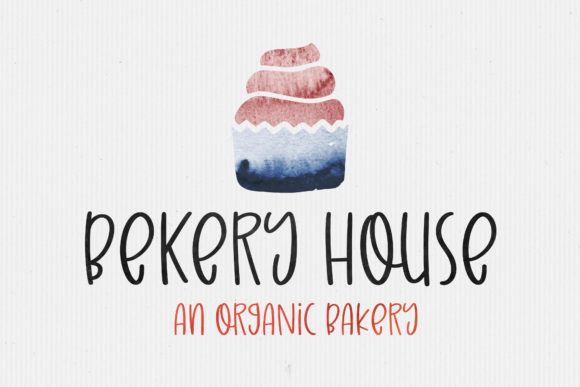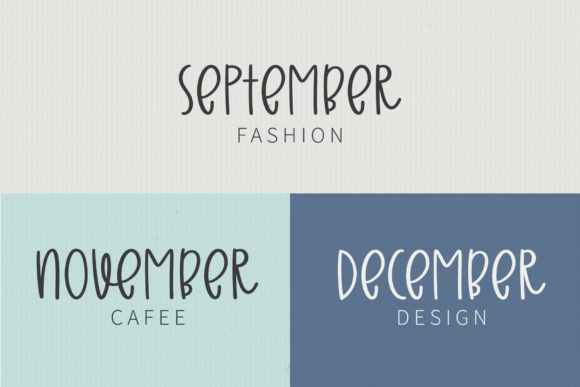
Farmhouse Christmas Font
Farmhouse Christmas is a sweet and friendly handwritten font. Its natural and unique style makes it incredibly fitting to a large pool of designs. The only limit is your imagination!